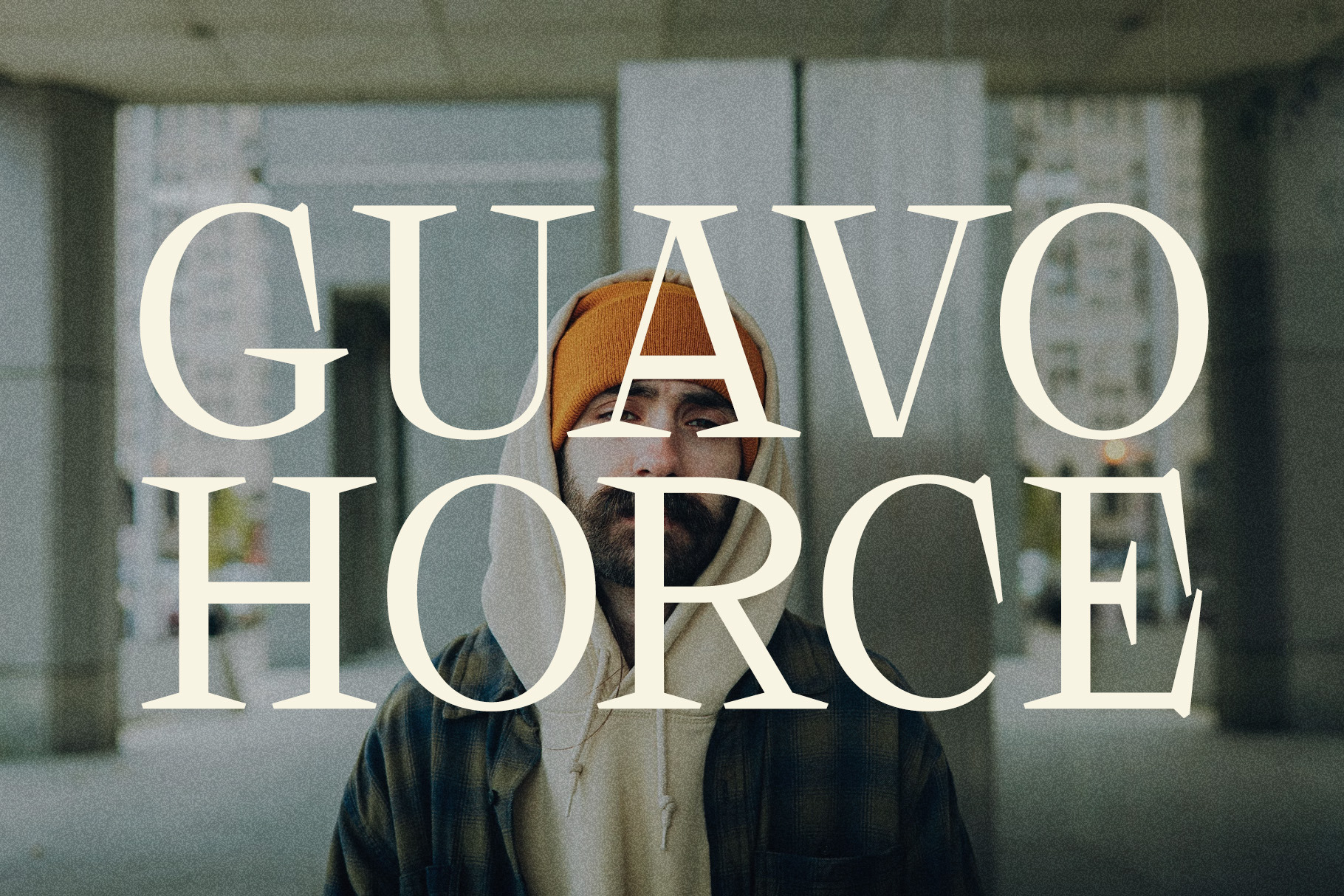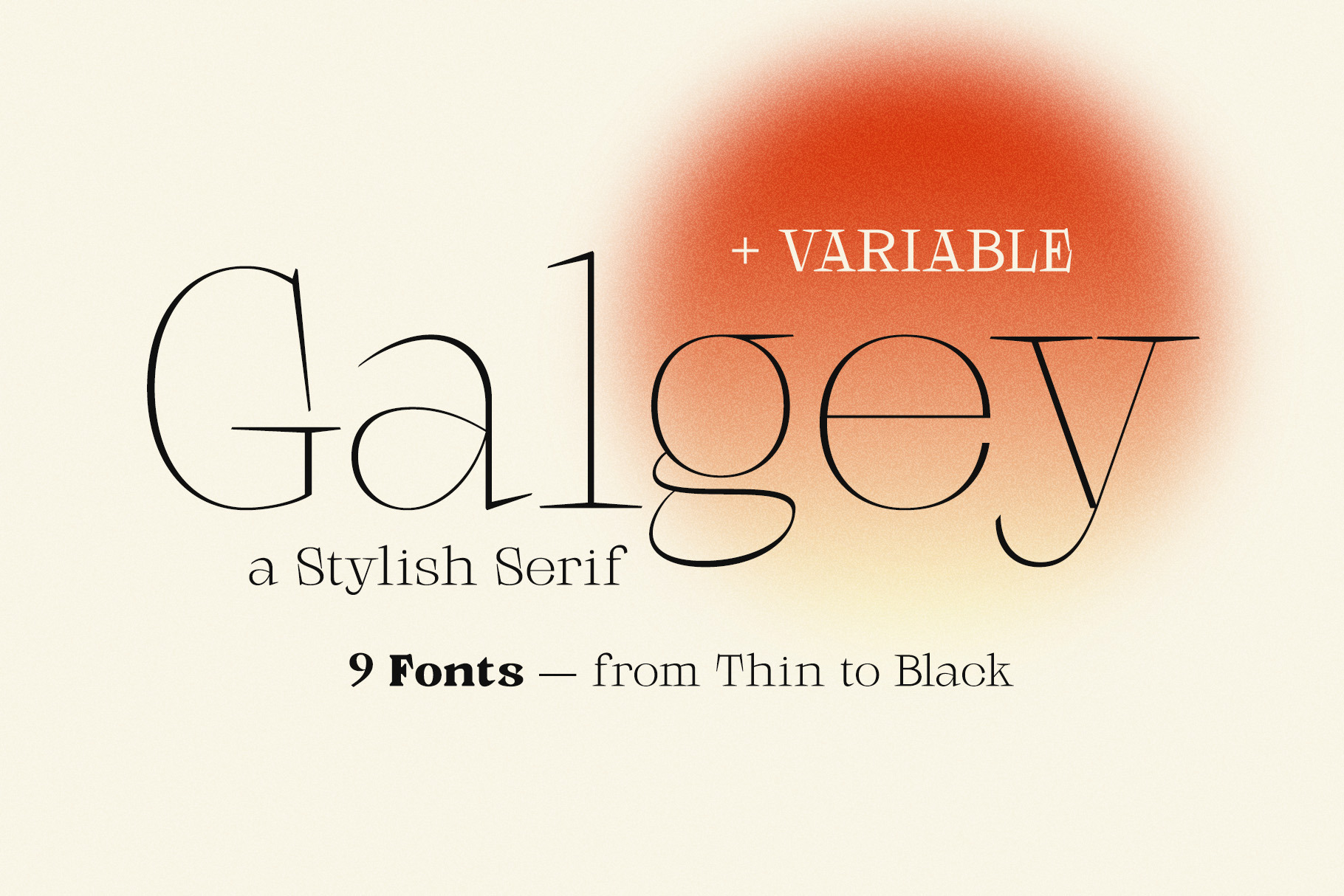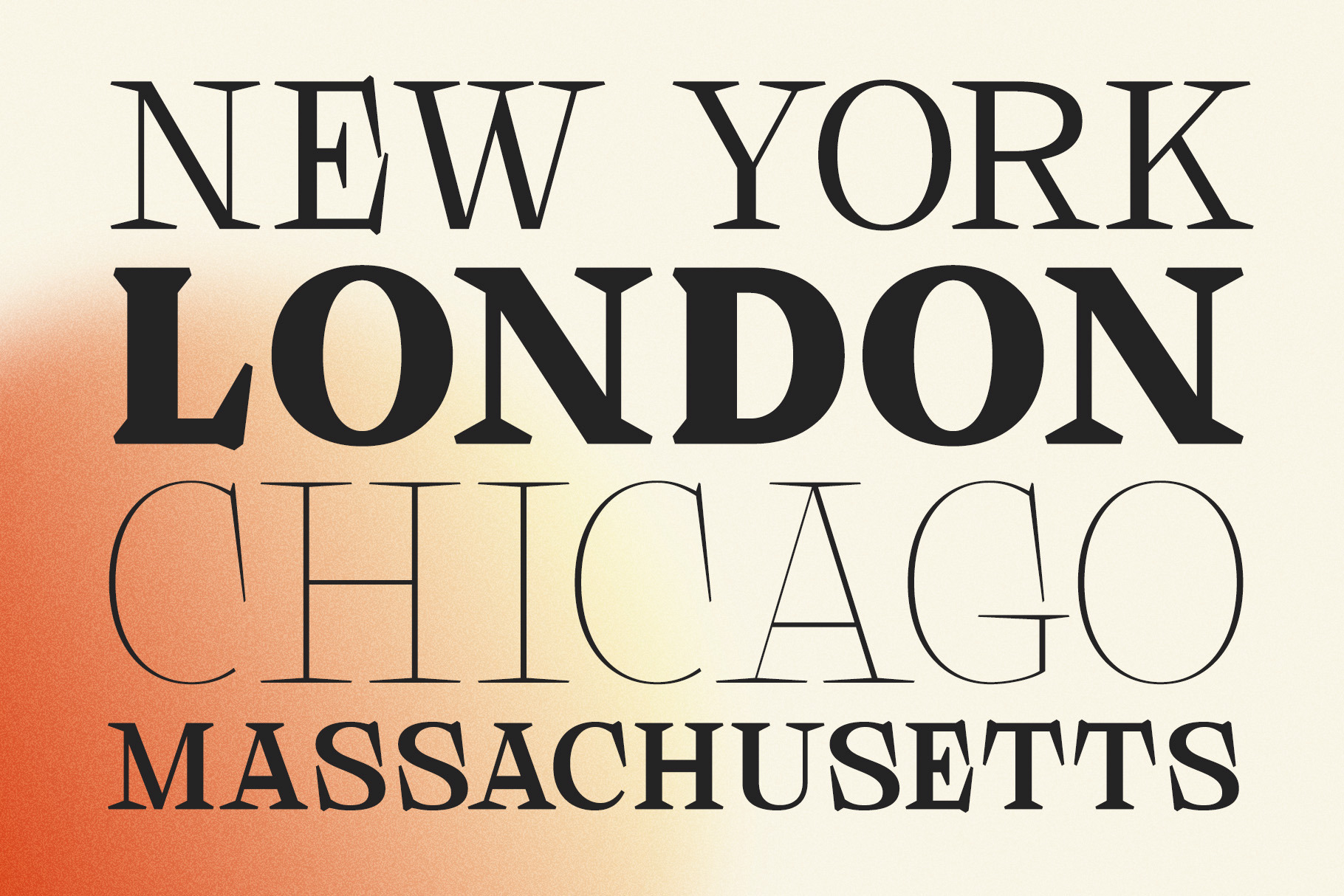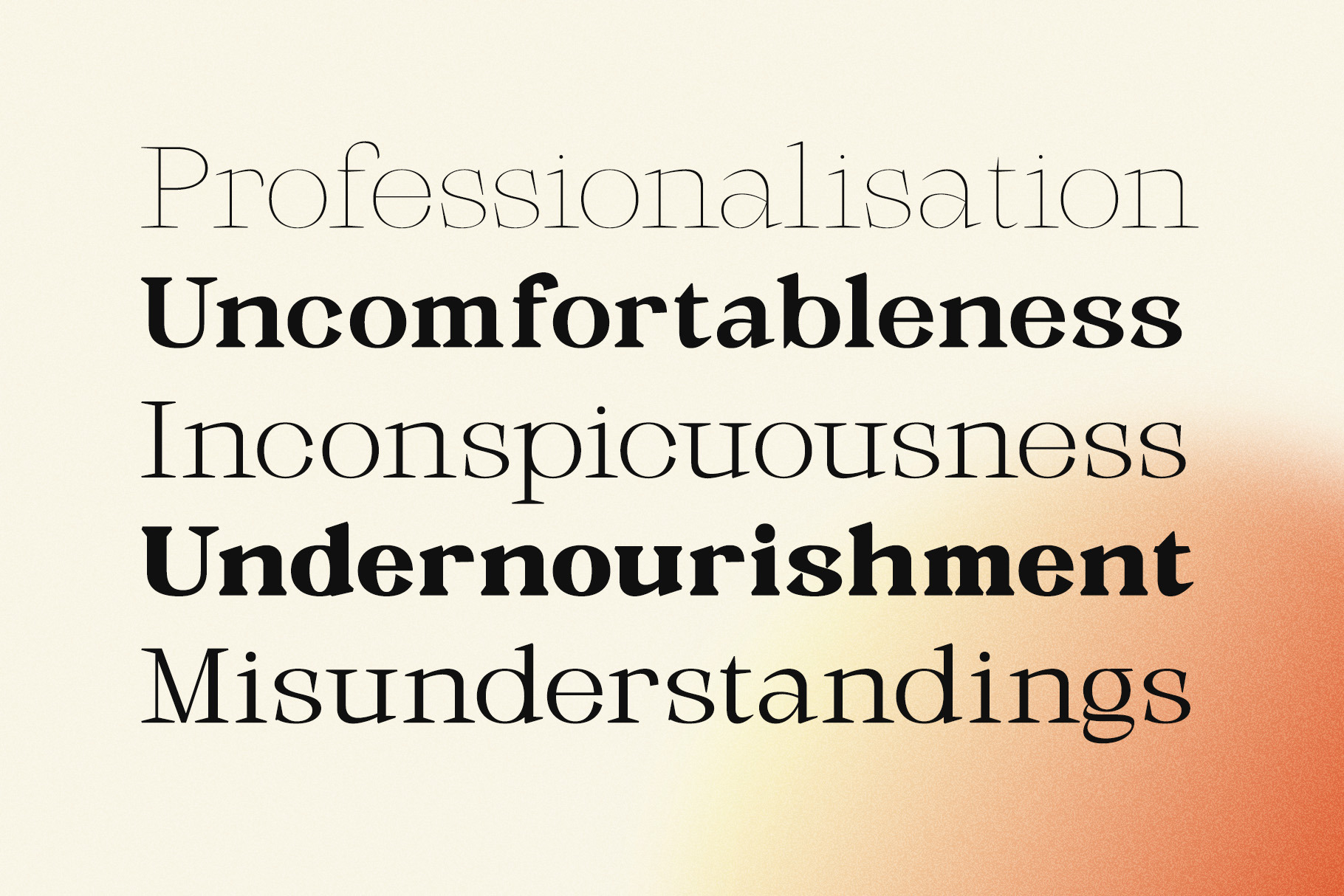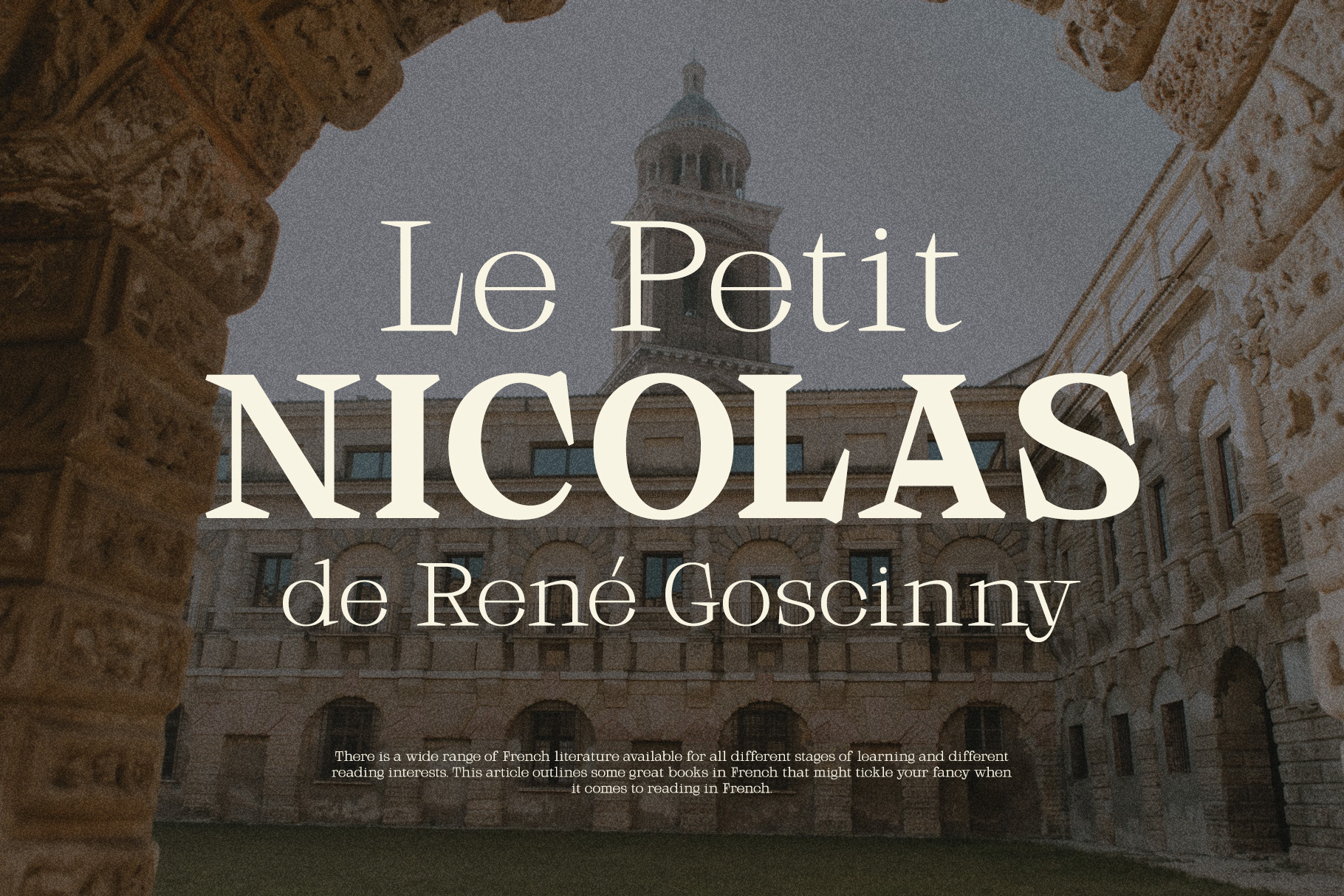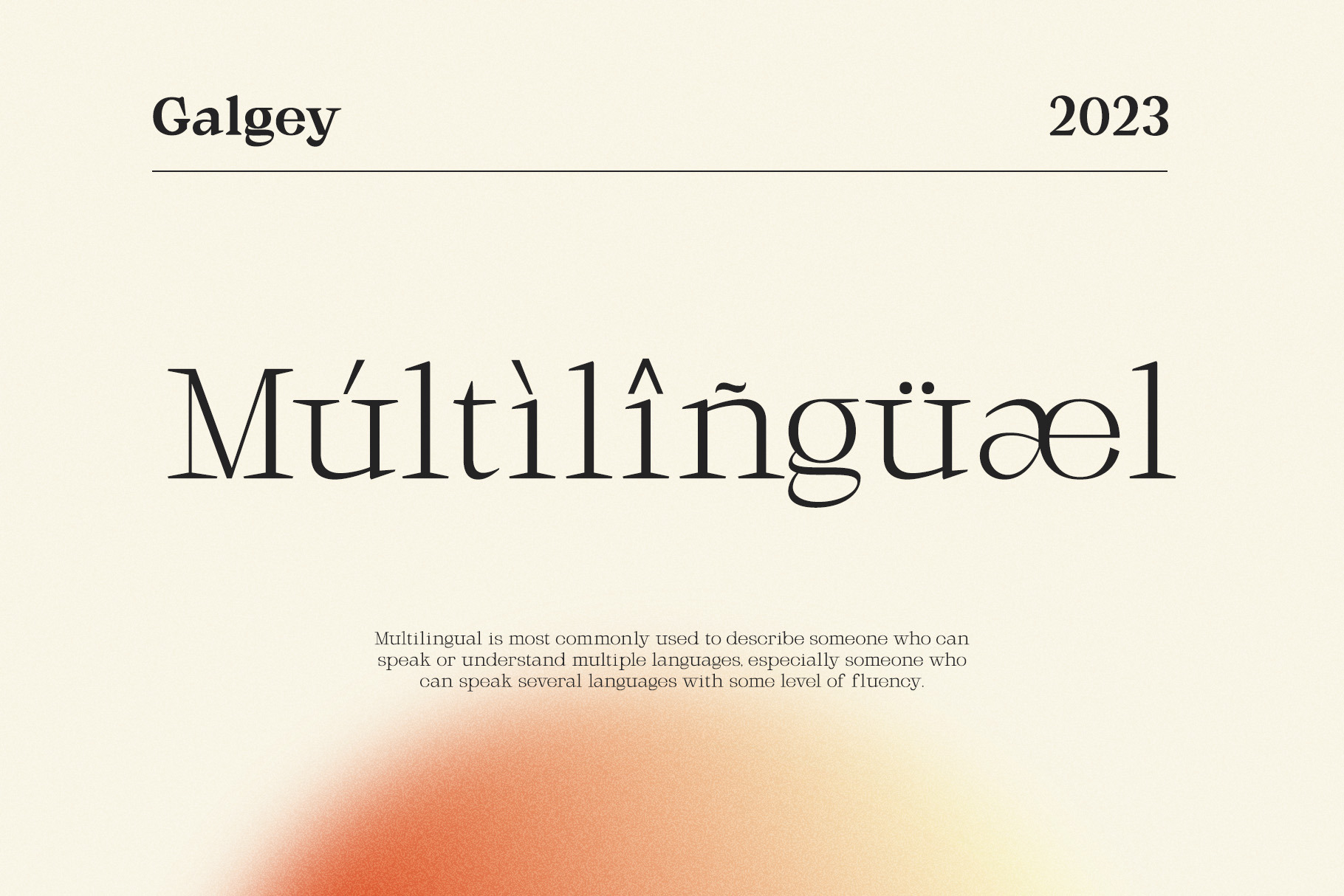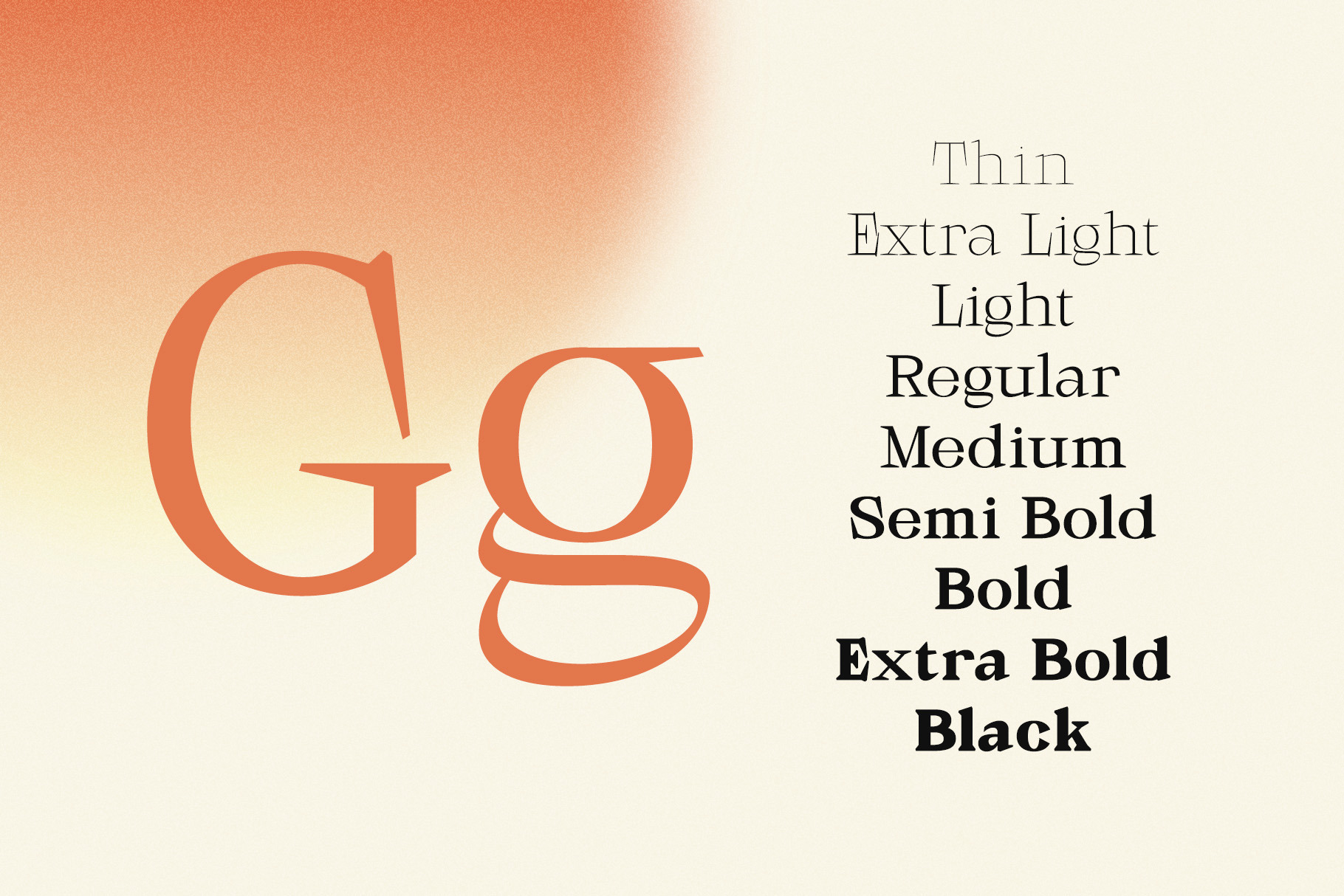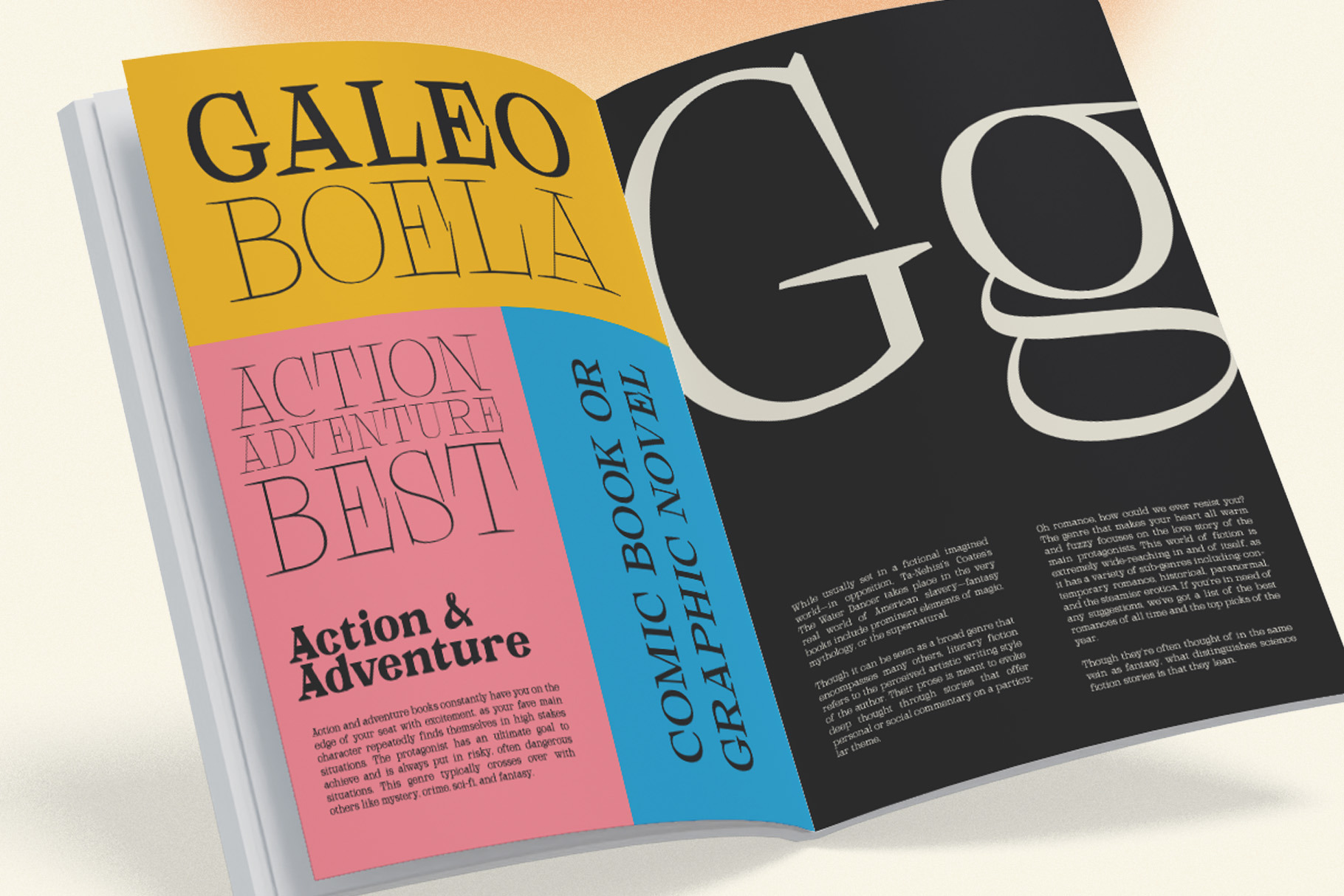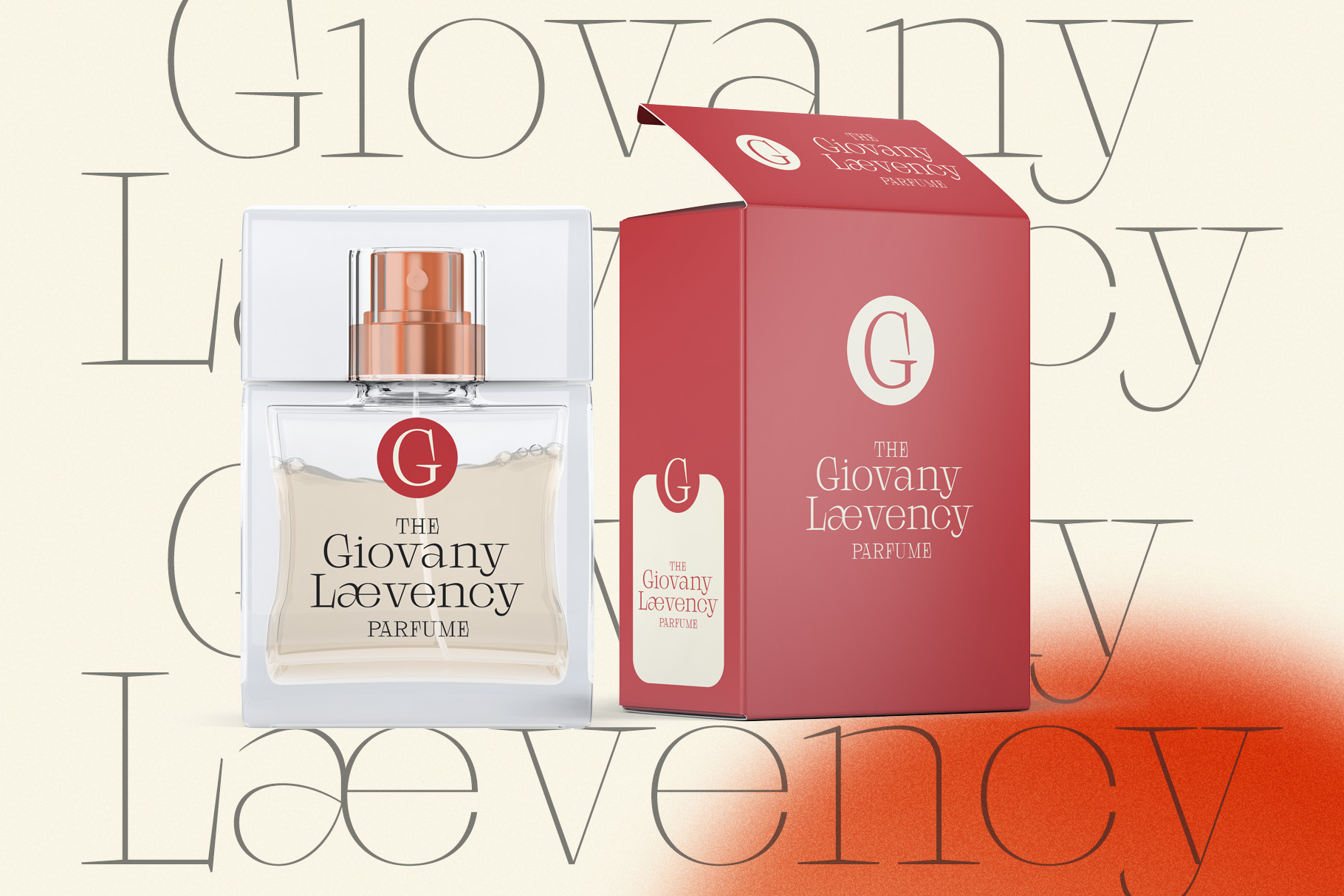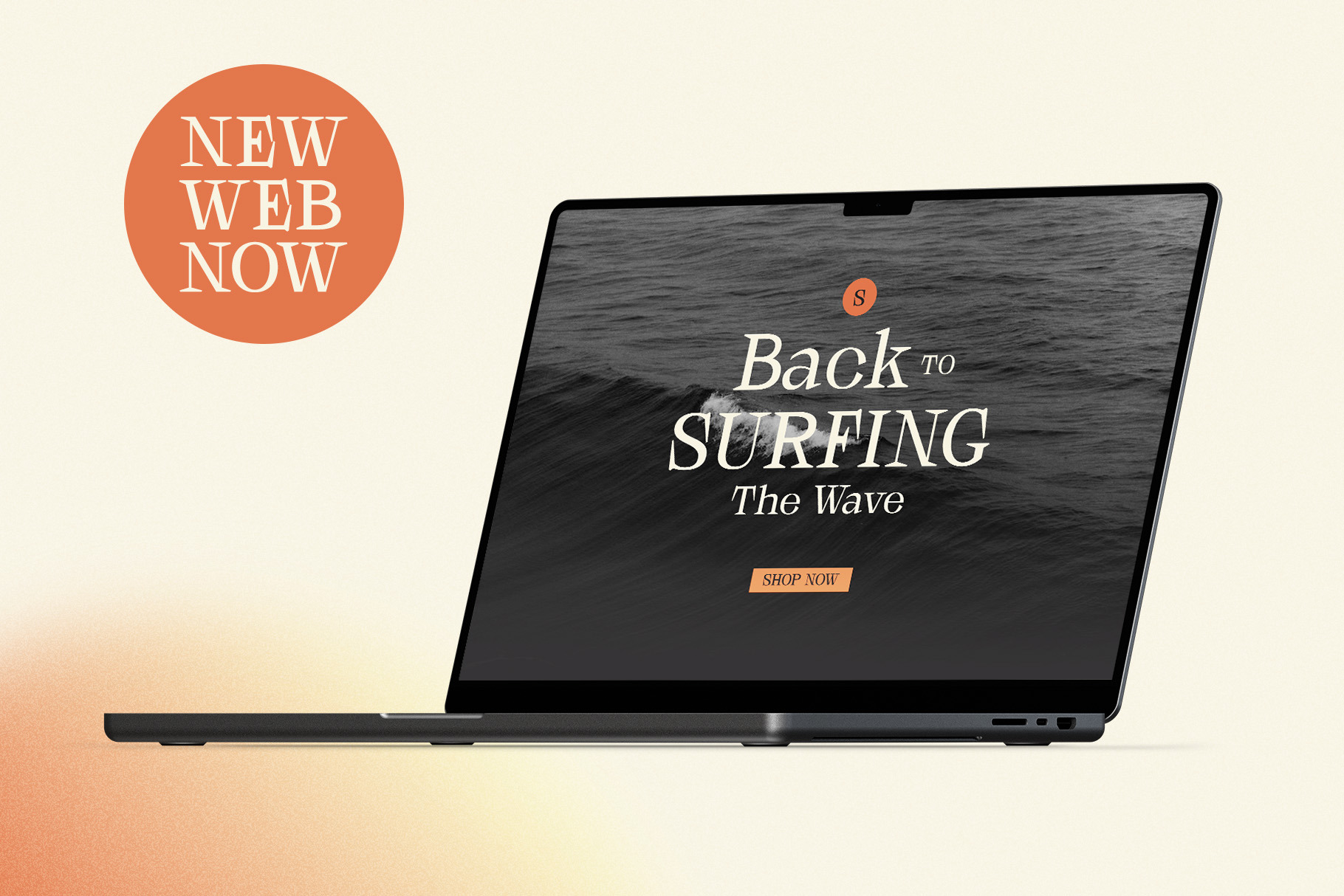
Galgey - Stylish Serif Font Family - Galgey is a stylish serif font that contains 9 weight fonts, from thin to black. Galgey is a simple and modern font suitable for any kind of design, whether it be print or digital. These fonts are well kerned, and should be usable in all programs without any additional plug-ins or software. Galgey is a stylish serif font that you can use for your website, logo, branding and more. With nine weights from thin to black, Galgey is a flexible typeface that can be used in any context. The beautiful curves of the letters make it perfect for use in titles, logos, commercial print and other display situations where space is limited. - Recommended Font Pairings : - Adelya (Elegant Signature Script Font): https://creativemarket.com/craftsupplyco/3389374-Adelya-Elegant-Signature-Font - Mafinest (Modern Grotesk): https://creativemarket.com/craftsupplyco/6731050-Mafinest-Modern-Grotesk - Branden (Casual Sans Serif) : https://creativemarket.com/craftsupplyco/4784162-Branden-Casual-Sans-Serif-Font - Bravely (Handwritten) : https://creativemarket.com/craftsupplyco/3004719-Bravely-Handwritten-Font - What you get : 1. Galgey Thin 2. Galgey Extra Light 3. Galgey Light 4. Galgey Regular 5. Galgey Medium 6. Galgey Semi Bold 7. Galgey Bold 8. Galgey Extra Bold 9. Galgey Black 10. Galgey Variable Features : 1. Uppercase & Lowercase 2. Numerals & Punctuations (OpenType Standard) 3. Accents (Multilingual characters) 4. PUA Encoded *All typefaces come in OTF, TTF, Woff/Woff2.* - *No special software is required to use this typeface.* - Please contact us if you have any questions. Enjoy Crafting and thanks for supporting us! :) Regards, *Craft Supply Co.* | Galgey - Font Family + Variable | Craft Supply Co